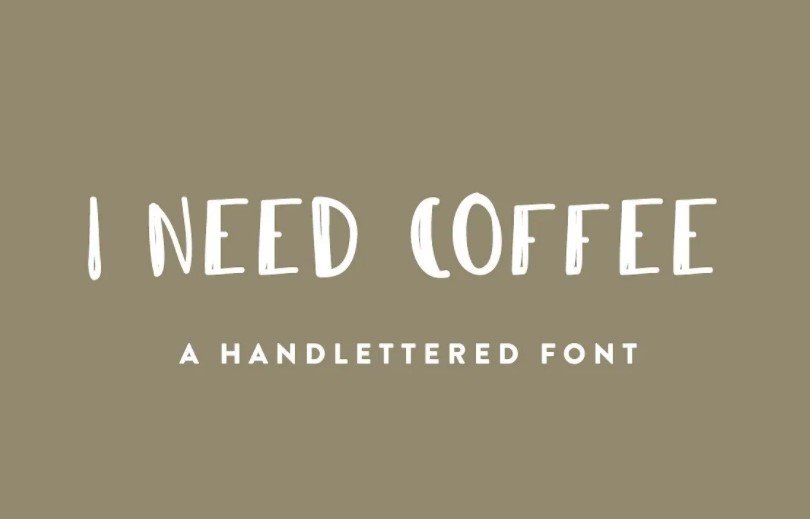
Today, we are excited to introduce a unique and elegant typeface: I Need Coffee Font, designed and shared by The Fresh Exchange font foundry.
The font has lots of punctuations, special characters, alphabetical sets that can work with any language and as pairing with the combination of the font for creating the best designs easily.
It has beautiful handlettered typeface which will easily makes lots of popular projects attractive with the combination of champagne & limousines font.
This unque and elegant font which has a popular texture so that can also be used in pairing also. That’s why each designer treated it as a really perfect font in all appreciate.
Style Handwritten
Designer The Fresh Exchange
What Type of Font Is I Need Coffee?
The I Need Coffee Font is the famous and amazing typeface which was product of the The Fresh Exchange.